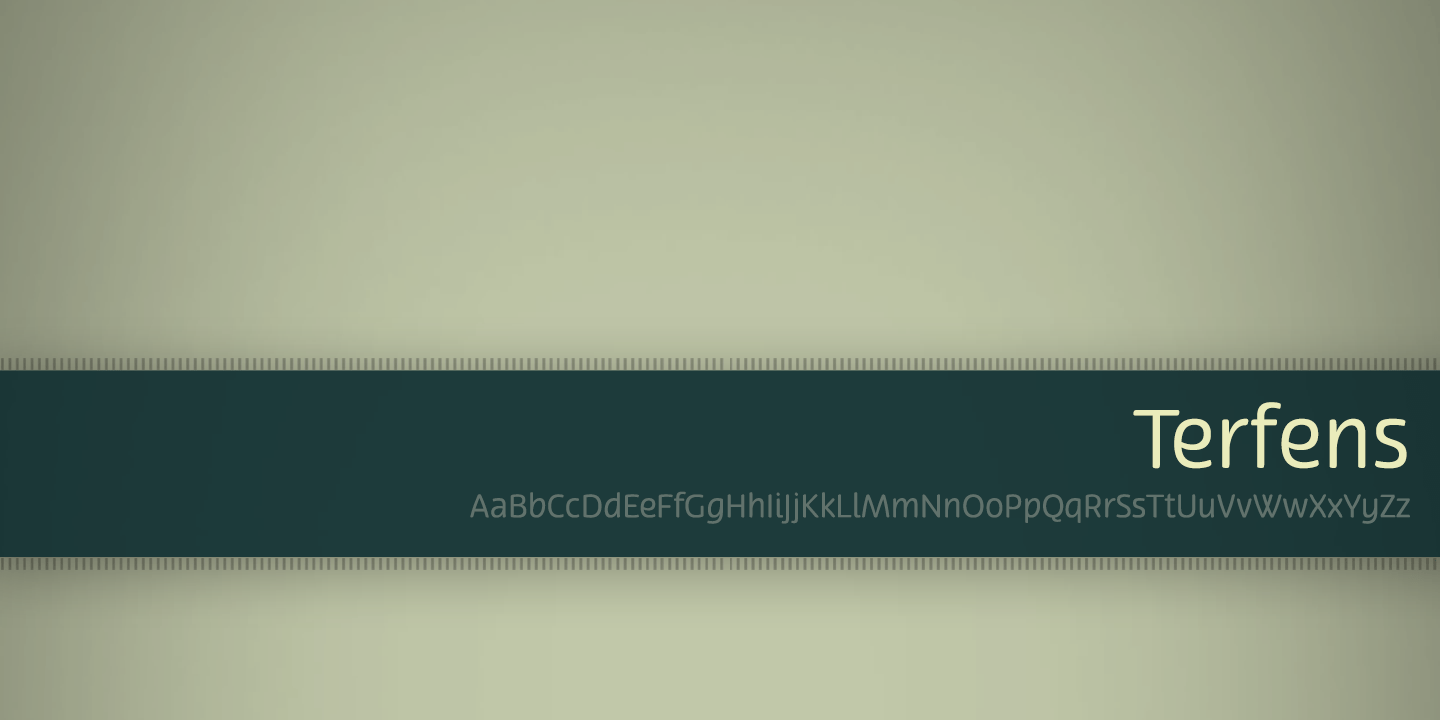
Terfens
About Terfens
Terfens is a sans serif with inspiration from chancery scripts like Stefania. Subtly rounded and eschewing harsh technical lines, Terfens is a warm and inviting typeface. Its tall x-height gives it a friendly but not overly informal feel. Its readability…